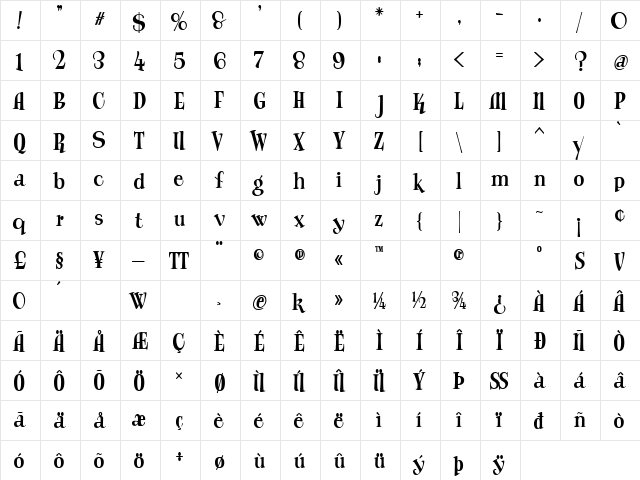
LHF Wade Grotesque CASUAL Regular
Design Context for LHF Wade Grotesque CASUAL Typeface
LHF Wade Grotesque CASUAL is a composed and adaptable typeface that performs quietly and consistently across a wide range of design contexts.